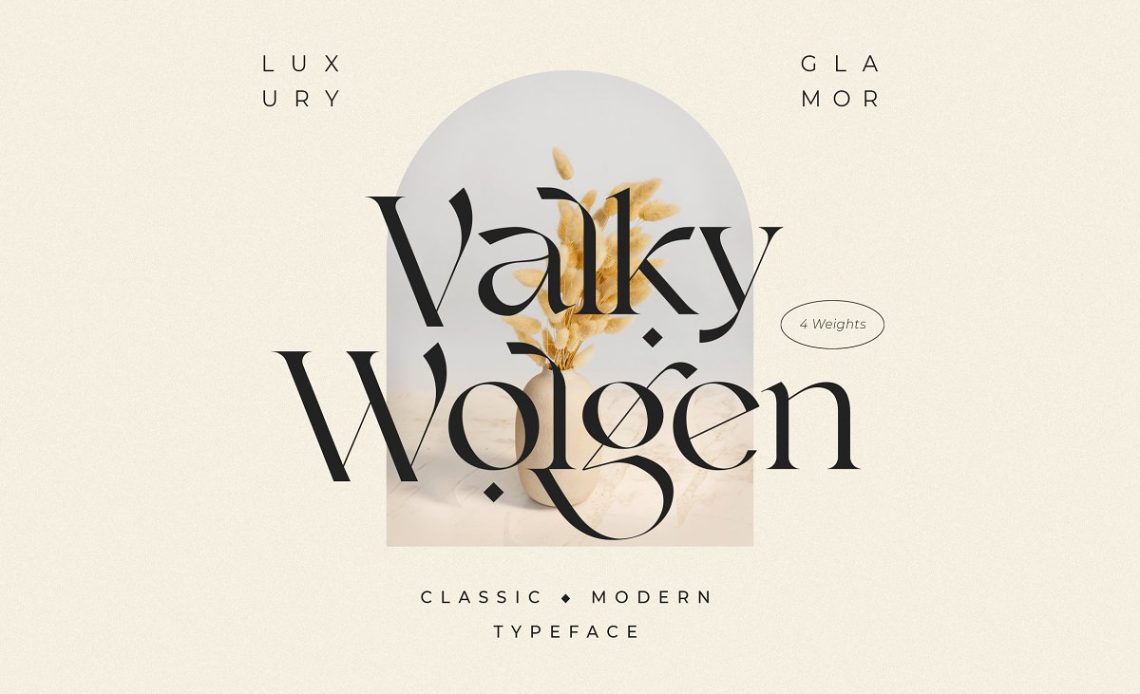
Looking for the perfect font to create an unforgettable impression on your wedding signage? Look no further than Valky Classic Modern Typeface! This elegant serif font family, created by NEWFLIX Bro, is designed to elevate your wedding décor with its classic, vintage-inspired aesthetic.
But Valky is more than just a wedding font – it's a versatile typeface that can be used in a variety of projects, from editorial layouts to clothing branding and product packaging. With four weights and plenty of stylistic alternates and ligatures, Valky offers endless possibilities for creative expression.
And with its multilingual support and accented characters, Valky is a font that truly speaks to a global audience. Whether you're designing in English or another language, Valky has you covered.